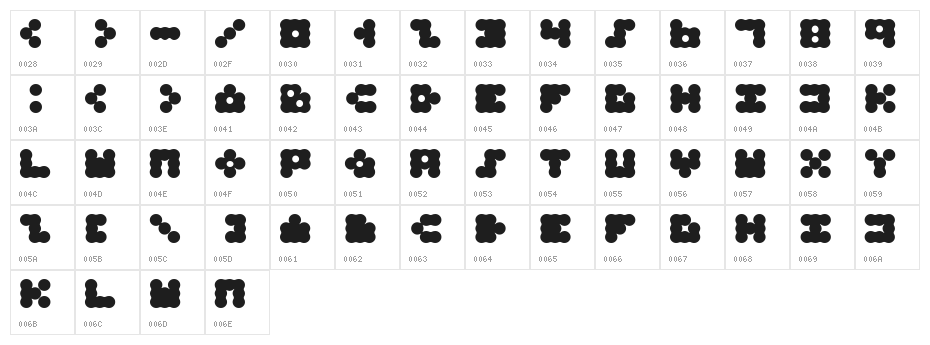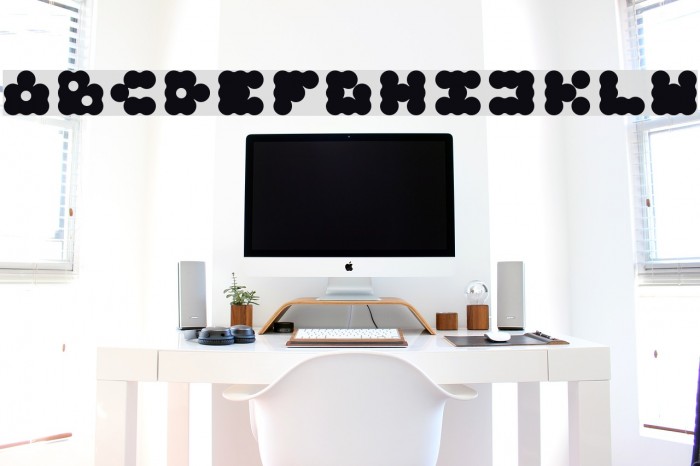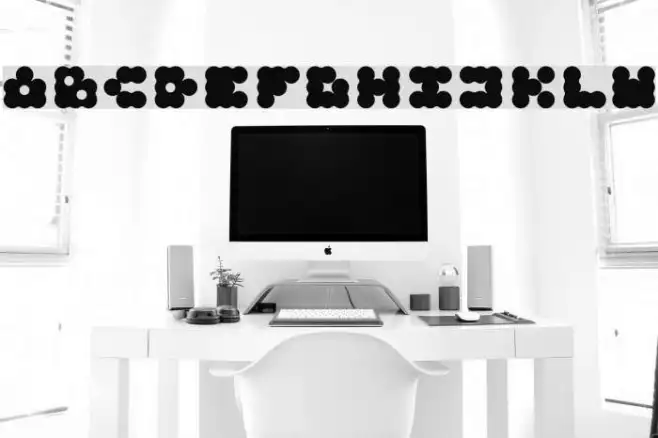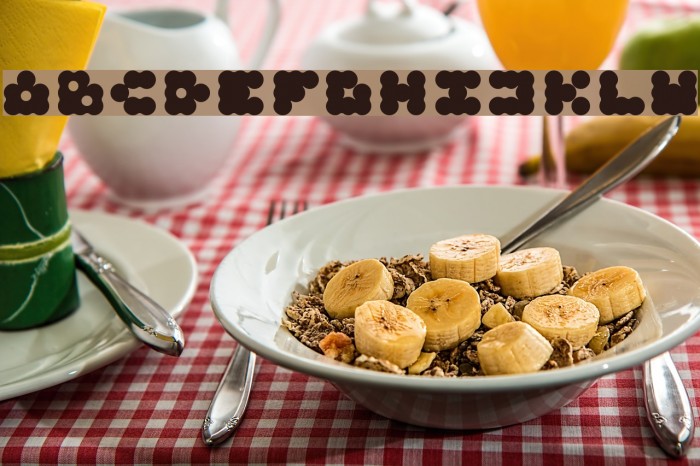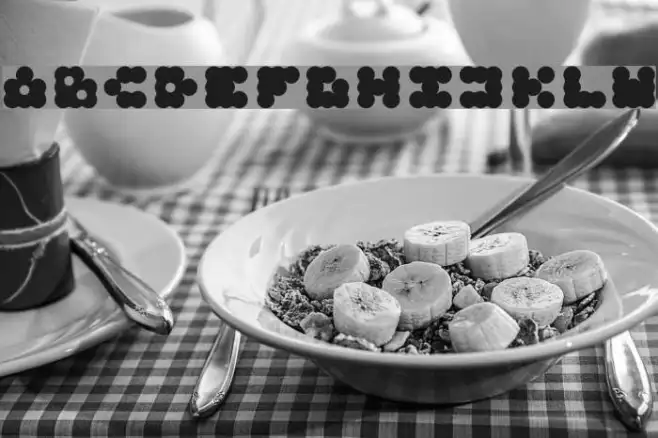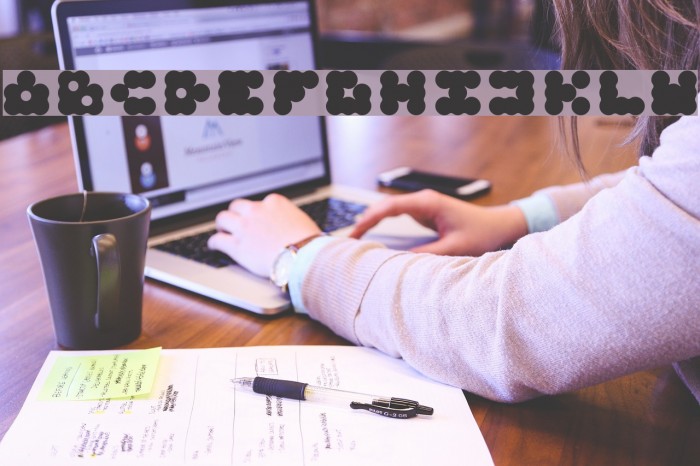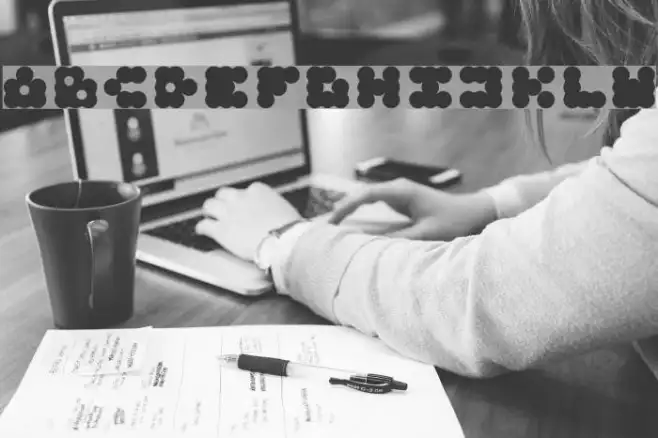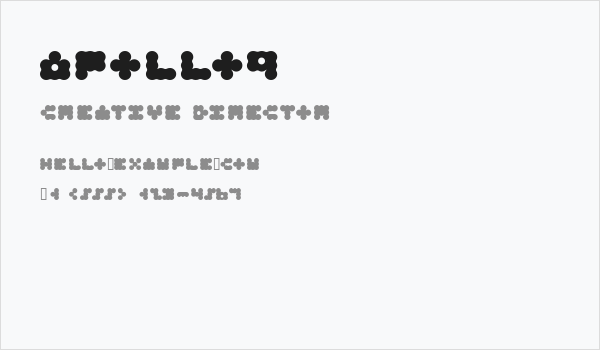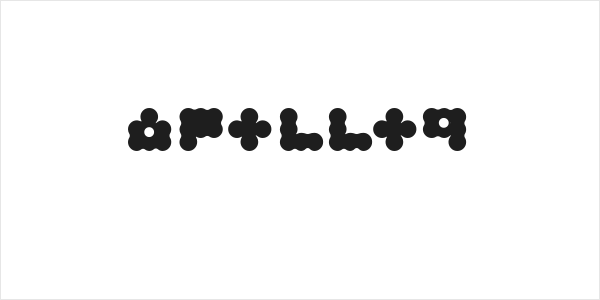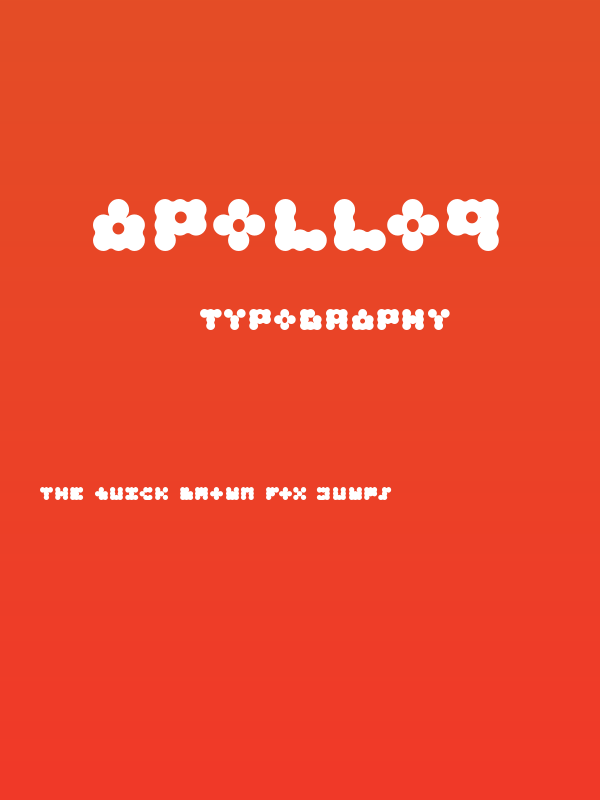
Apollo9 Font
Apollo9 Description
This font features a bold, playful design characterized by its unique bubble-like forms. Each character is composed of rounded, interconnected shapes that create a sense of whimsy and fun. The letters are uniform in height, giving a cohesive look across both uppercase and lowercase alphabets. The numbers and special characters maintain the same bubbly aesthetic, ensuring consistency throughout. This font's distinct style makes it stand out, offering a modern twist on traditional typefaces. Its boldness and unique character shapes make it suitable for eye-catching designs.
| Overall Style | Modern, Playful |